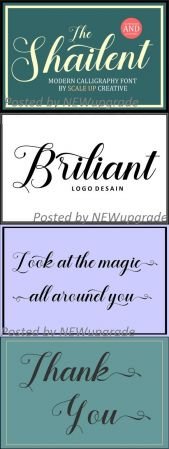
The Shailent feels modern and sophisticated. This trendy handwritten font. is a beautiful combination of timeless elegance and authentic calligraphy. It features an incredibly classic style, while still keeping a friendly feel. The Shailent is the perfect font for making original and outstanding designs.